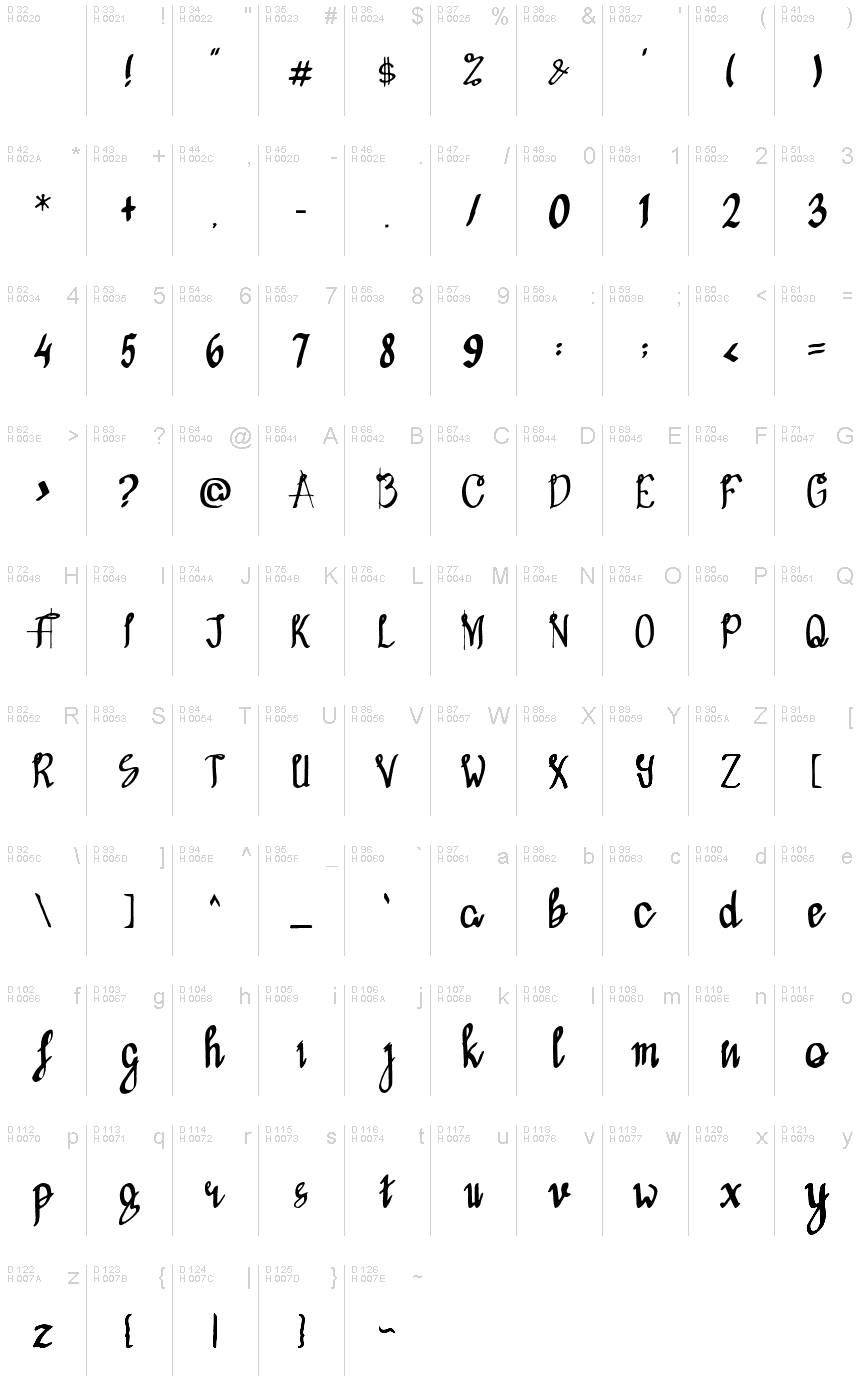
Moonlight
We just now launch our newest product called Moonlight fount This font is very suitable for logo clothing magazine poster quotes and orthers